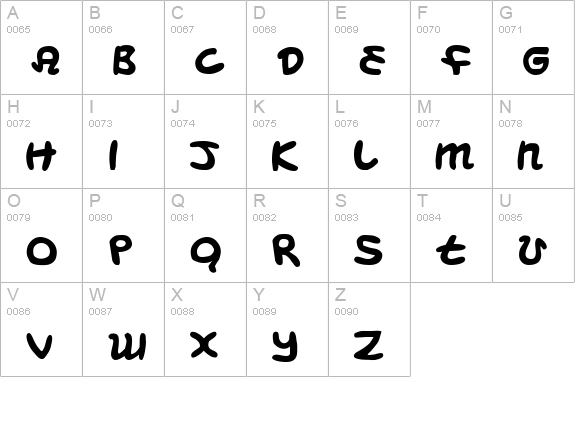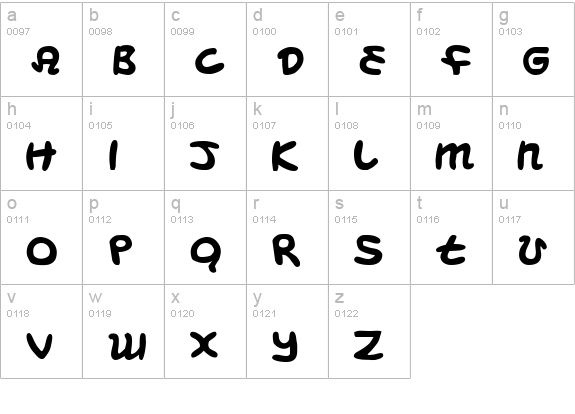
Magic Beans Font Details
Magic Beans font is a whimsical and enchanting typeface that will add a touch of magic to your projects. With its playful curves and charming details, this font is perfect for creating eye-catching designs that stand out. Whether you're working on a children's book, greeting cards, posters, or any other creative project, Magic Beans font will bring a sense of wonder and delight to your work. The best part? Magic Beans font is available for free download at FontsMarket.com. This means you can easily access this captivating font and use it in your designs without any cost. Don't miss out on the opportunity to add a sprinkle of magic to your projects with Magic Beans font. Download it today and let your creativity soar!